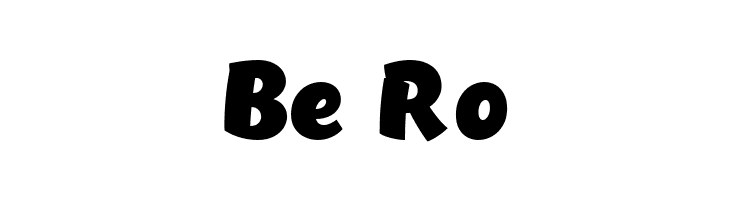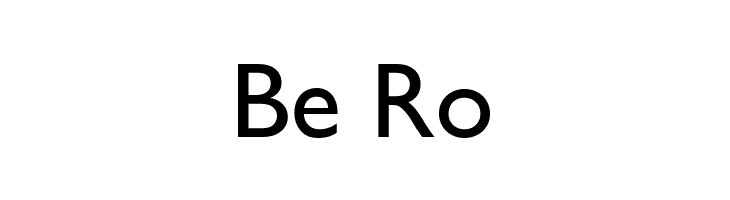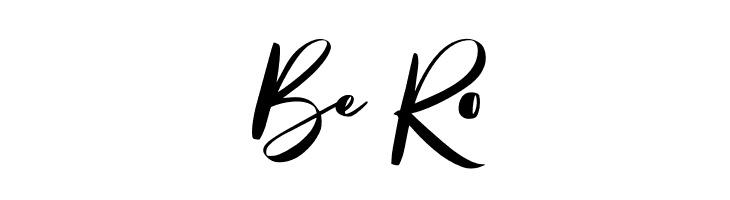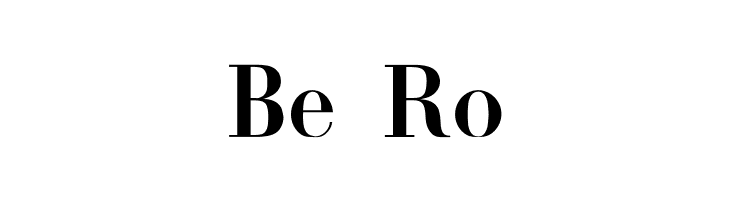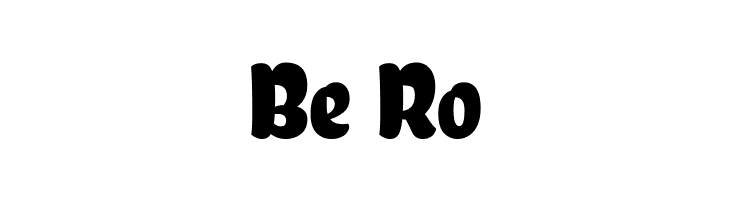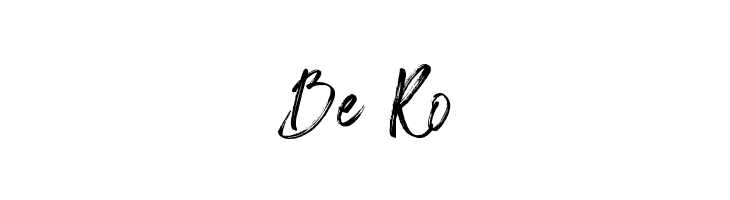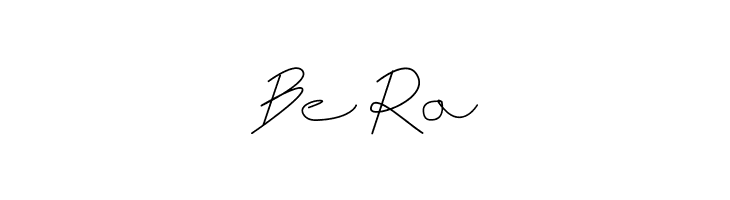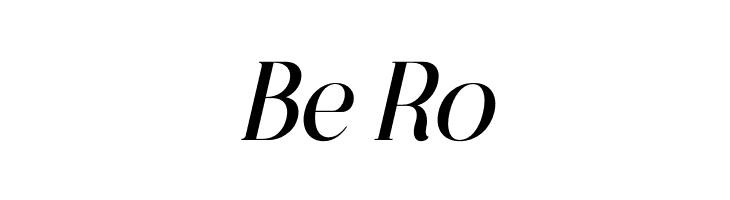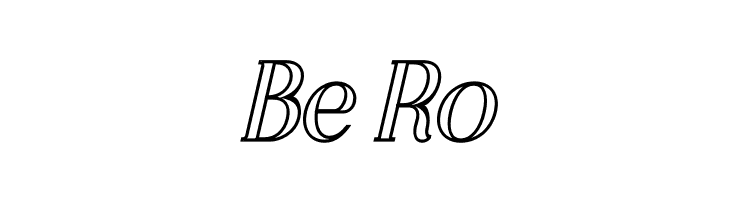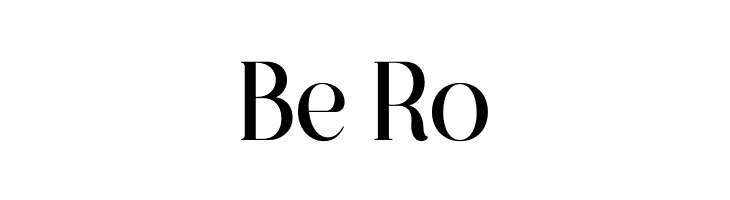
A bold, condensed font with a vintage yet modern style, perfect for impactful headlines.
A bold serif font with strong strokes and pronounced serifs, offering a classic and authoritative style.
A classic serif font with elegant, thin strokes and a timeless appearance.
A dynamic, expressive handwritten font with fluid, cursive letterforms.
A dynamic, handwritten font with fluid, expressive strokes.
A bold serif font with strong vertical lines and pronounced serifs.
A bold, angular font with a modern and geometric style.
A playful, rounded font with bold, smooth curves and a friendly vibe.
A playful, rounded font with a bold and friendly appearance.
A bold, playful font with thick strokes and a slight italic slant.
A classic serif font with high contrast and elegant serifs.
A modern-vintage serif font with arrow-like serifs and artistic flair.
A playful and dynamic font with geometric and whimsical elements.
A bold, playful font with rounded edges and thick strokes.
A bold, playful font with rounded strokes and a friendly appearance.
A dynamic, brush-style script font with expressive strokes.
A decorative and elegant font with cursive and bold elements, perfect for artistic projects.
A bold, geometric font with angular shapes and a modern aesthetic.
A dynamic and expressive script font with modern flair and fluid strokes.
A delicate and flowing script font with elegant, elongated letterforms.
A high-contrast, elegant serif font with a classic yet modern appeal.
An elegant serif font with high contrast and a refined italic style.
An outlined, geometric font with bold lines and a modern aesthetic.
An elegant outline serif font with an italic slant, offering a refined and classic appearance.
A playful, bold font with rounded, bubbly letterforms.
An elegant, cursive font with flowing, sophisticated letterforms.
A modern, geometric font with art deco influences and thin, elegant lines.
A classic serif font with modern elegance and unique character flourishes.